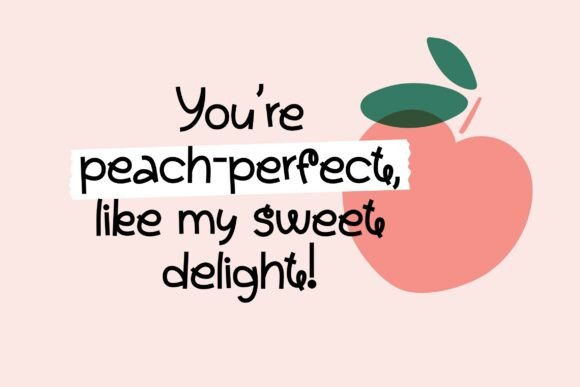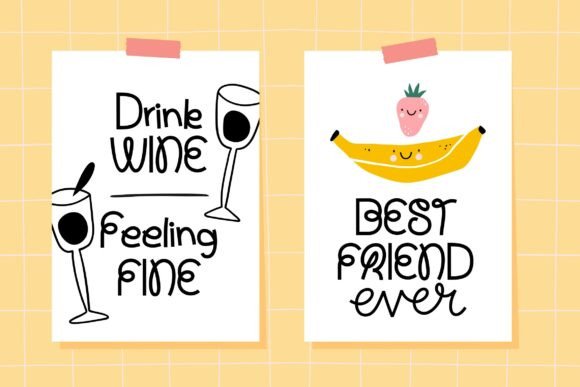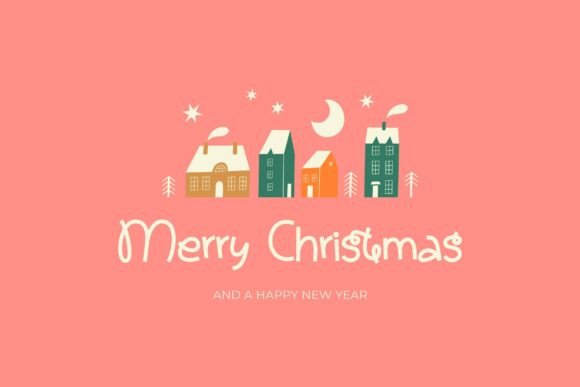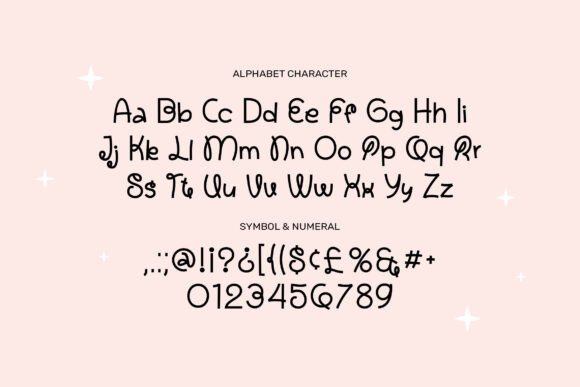
Hello Chuckle Font: The Perfect Choice for Playful and Joyful Designs
Are you looking for a font that can add a touch of playfulness and joy to your designs? Look no further than the Hello Chuckle font. This adorable font is characterized by its rounded, uneven strokes that evoke a sense of friendliness and approachability. In this article, we’ll explore the features and benefits of the Hello Chuckle font, and how it can be used to create delightful designs for various projects.
What is Hello Chuckle Font?
Hello Chuckle is a cute and playful font that is perfect for designs that require a friendly and approachable tone. Its rounded, uneven strokes give it a unique and charming appearance that is sure to capture the attention of your audience. The font is highly versatile and can be used for a wide range of projects, from children’s books and greeting cards to fun branding and cheerful posters.
Key Features of Hello Chuckle Font
- Rounded and uneven strokes: The font’s distinctive strokes give it a playful and whimsical feel that is perfect for designs that require a friendly tone.
- Cute and playful appearance: The font’s adorable appearance makes it perfect for designs that require a touch of fun and playfulness.
- Highly versatile: The font can be used for a wide range of projects, from children’s books to fun branding and posters.
- Easy to read: Despite its playful appearance, the font is easy to read and can be used for both headings and body text.
Use Cases for Hello Chuckle Font
The Hello Chuckle font is perfect for a wide range of projects, including:
- Children’s books: The font’s playful and whimsical appearance makes it perfect for children’s books, especially those that require a friendly and approachable tone.
- Greeting cards: The font’s cute and playful appearance makes it perfect for greeting cards, especially those for birthdays, weddings, and other celebrations.
- Fun branding: The font’s playful and friendly appearance makes it perfect for fun branding projects, such as logos and packaging for children’s products.
- Posters: The font’s bold and playful appearance makes it perfect for posters, especially those for events and promotions that require a fun and attention-grabbing tone.
- Cheerful designs: The font’s playful and whimsical appearance makes it perfect for cheerful designs, such as social media graphics and blog posts.
Tips for Using Hello Chuckle Font
Here are some tips for using the Hello Chuckle font effectively:
- Use it for headings and titles: The font’s bold and playful appearance makes it perfect for headings and titles.
- Pair it with a simple font: Pair the Hello Chuckle font with a simple font for body text to create a clear and readable design.
- Experiment with colors: The font’s playful appearance makes it perfect for bright and bold colors.
- Use it sparingly: Use the font sparingly to create a playful and whimsical effect.
The Hello Chuckle font is a versatile and playful font that is perfect for designs that require a friendly and approachable tone. Its rounded, uneven strokes give it a unique and charming appearance that is sure to capture the attention of your audience. With its wide range of use cases and tips for effective use, the Hello Chuckle font is a great addition to any designer’s toolkit.
Whether you’re a designer, crafters, or DIY enthusiast, the Hello Chuckle font is a great choice for your next project. So why not give it a try and see how it can add a touch of playfulness and joy to your designs?